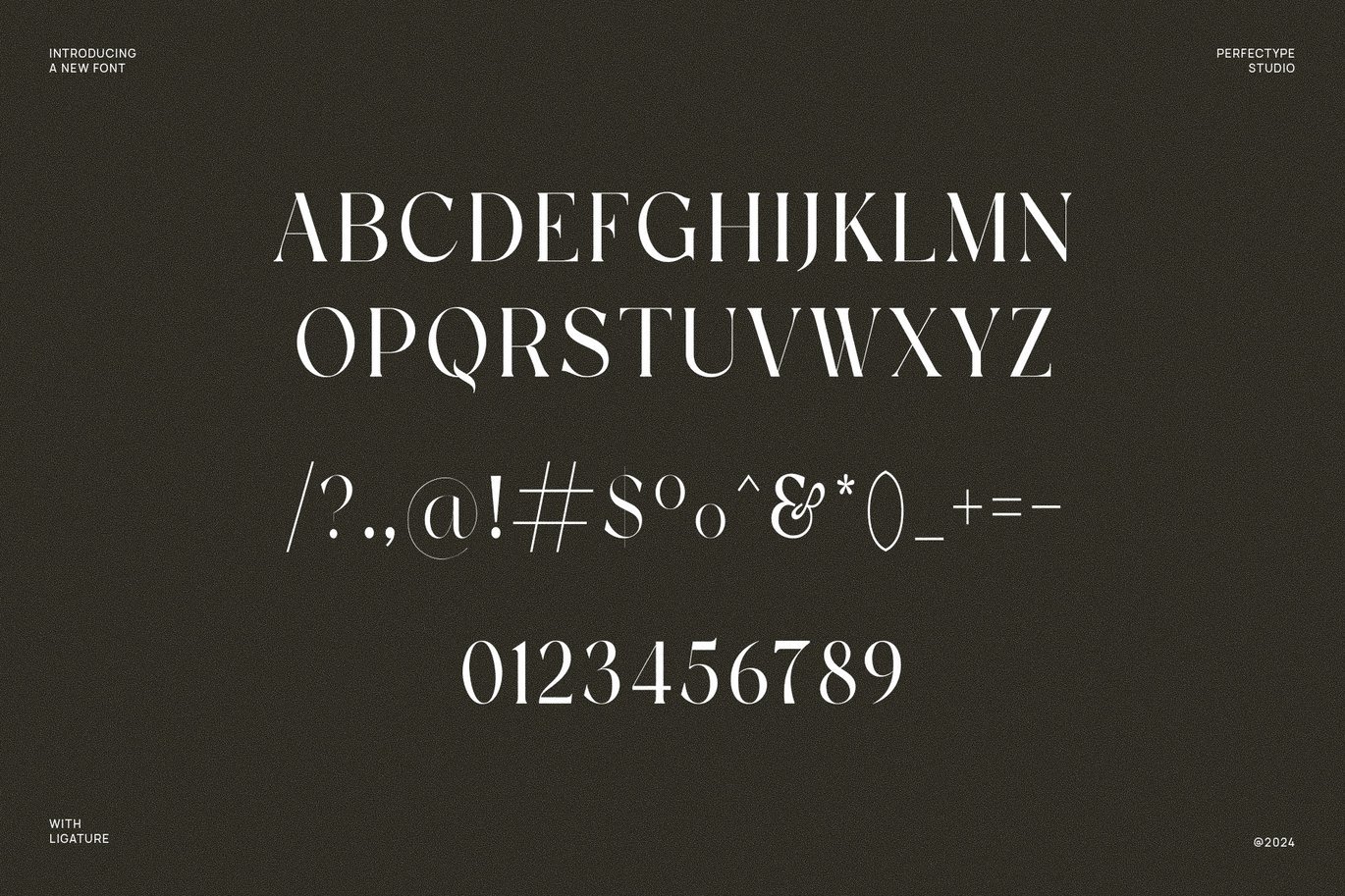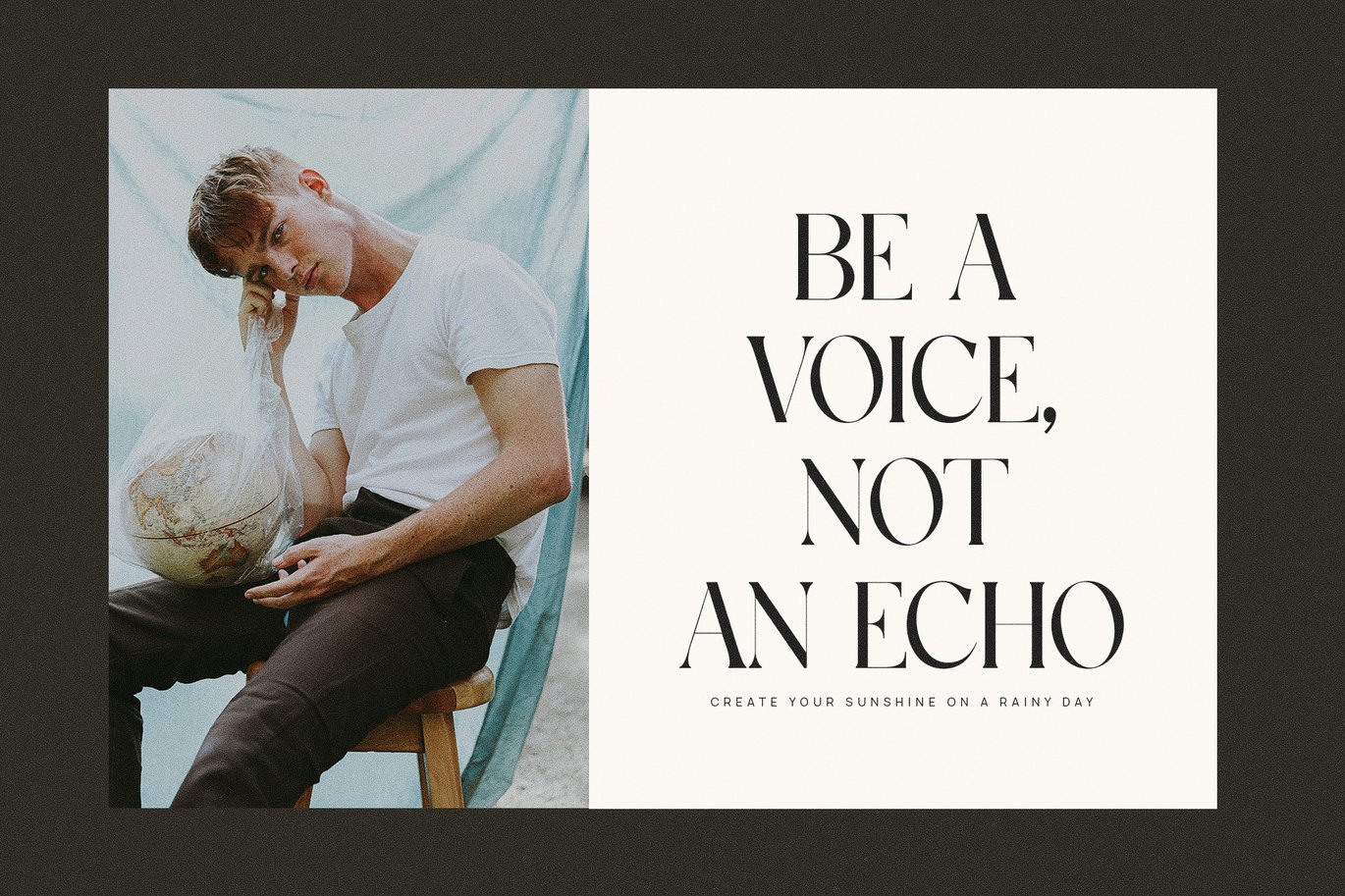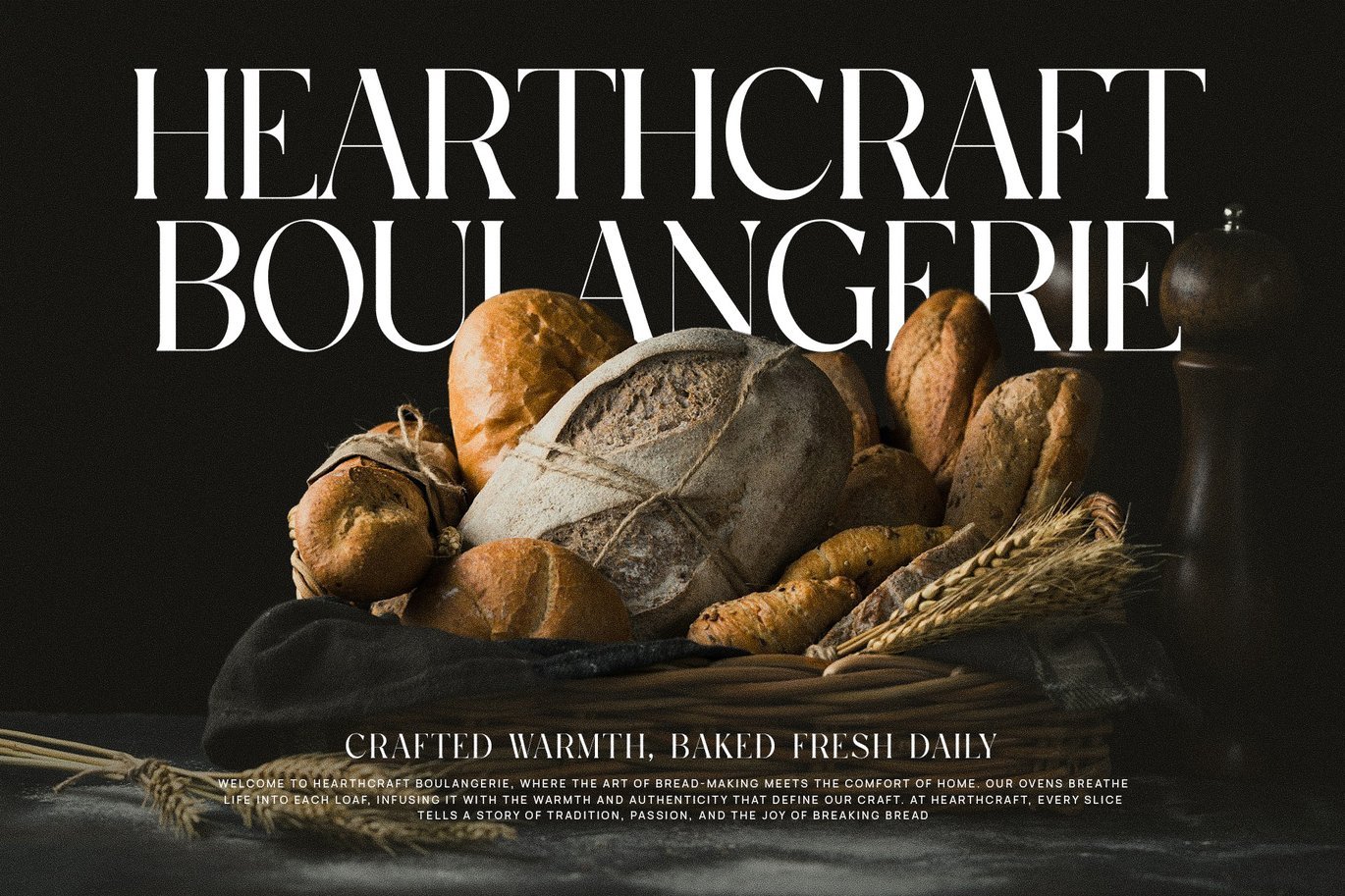
Vogue Elegant Serif Typeface – Classic Luxury Font
Step into sophistication with the Vogue Elegant Serif Typeface — a timeless serif font designed to bring high fashion, beauty, and class into your creative projects. Whether you're designing a bold magazine spread, a chic logo, or a stylish product label, this font helps your work stand out.
Because of its high contrast strokes and clean letterforms, the font feels modern yet classic. Even better, it's easy to read while still making a powerful visual impact. You can use it for both digital and print designs with equal success. Not only that, but its graceful curves and tall x-height give it a distinctive editorial feel.
Why you'll love this serif font:
Elegant and readable — great for headlines and logos
High contrast letters that draw attention instantly
Stylish alternatives and ligatures for custom designs
Perfectly balanced for fashion and luxury branding
Above all, this font was made to elevate. For example, when paired with minimalist layouts, it creates stunning results. Additionally, it works well with modern sans-serif fonts or handwritten styles. So, you get flexibility without losing personality.
Top reasons to use Vogue Elegant Serif Typeface:
Ideal for fashion campaigns and premium packaging
Excellent for editorial layouts and magazine titles
Great choice for beauty, lifestyle, and luxury brands
Smooth rendering across devices and print materials
Fully optimized for designers of all levels
Even though it's classy, it's also easy to use. Thanks to its simple structure, you can drop it into your projects quickly. Plus, it includes multilingual support, making it a smart choice for international designs.
In conclusion, the Vogue Elegant Serif Typeface offers a perfect mix of grace, clarity, and style. Use it to bring luxury to your visuals and create work that truly shines.